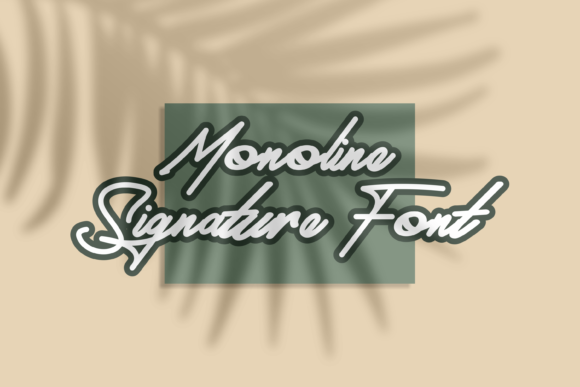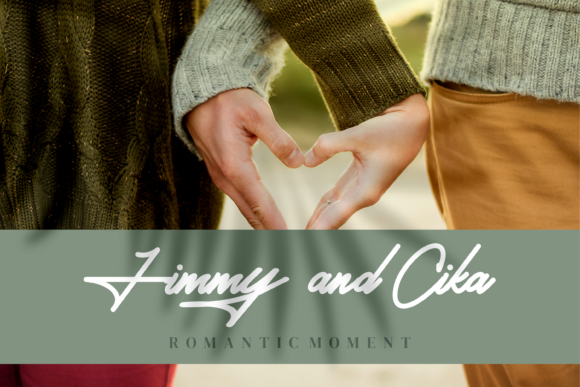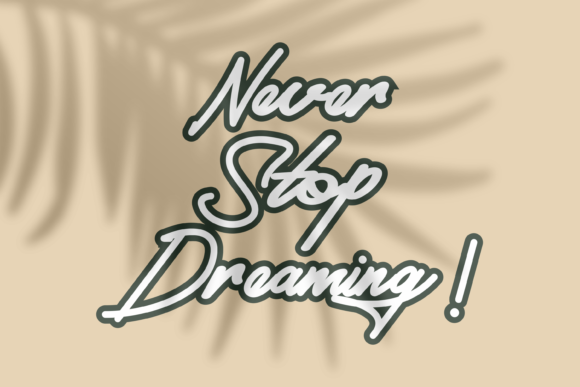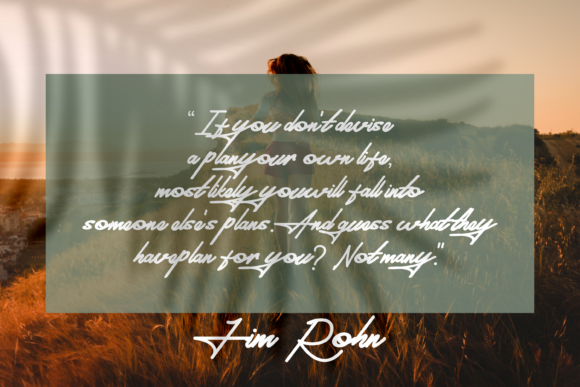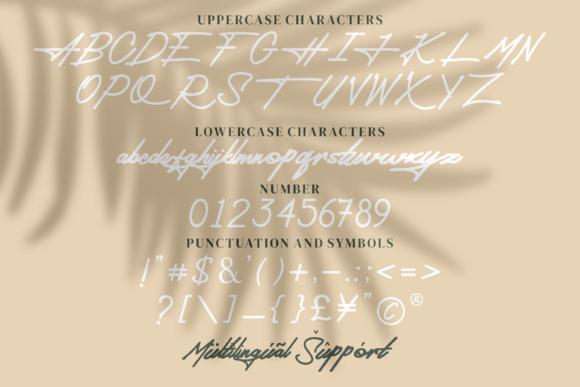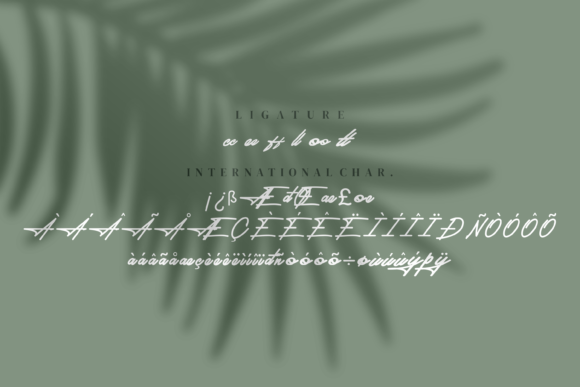
Introduction to Jhackyson Signature Font
Jhackyson Signatureis a lovely and timeless handwritten font.
Why Choose Jhackyson Signature Font?
Jhackyson Signature Font offers exceptional quality and versatility, making it a valuable addition to your design toolkit. Whether you’re creating for personal projects or commercial use, Jhackyson Signature Font delivers professional results.